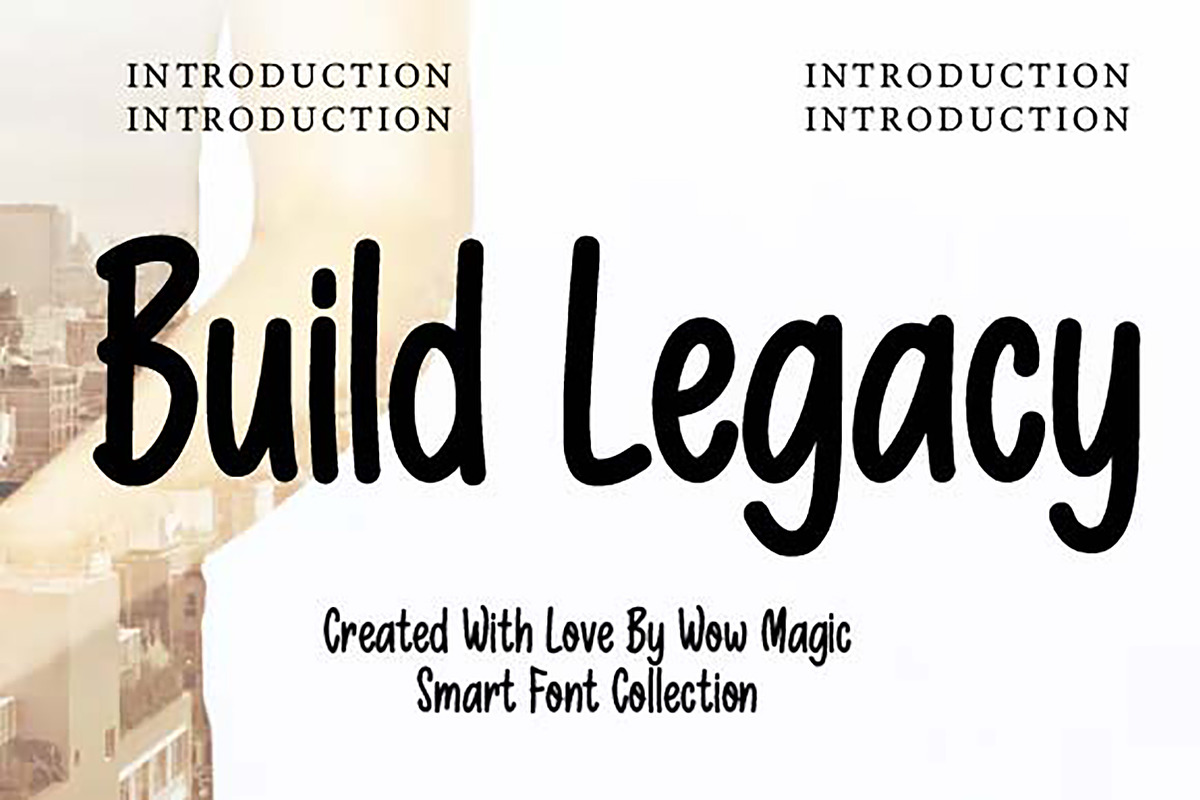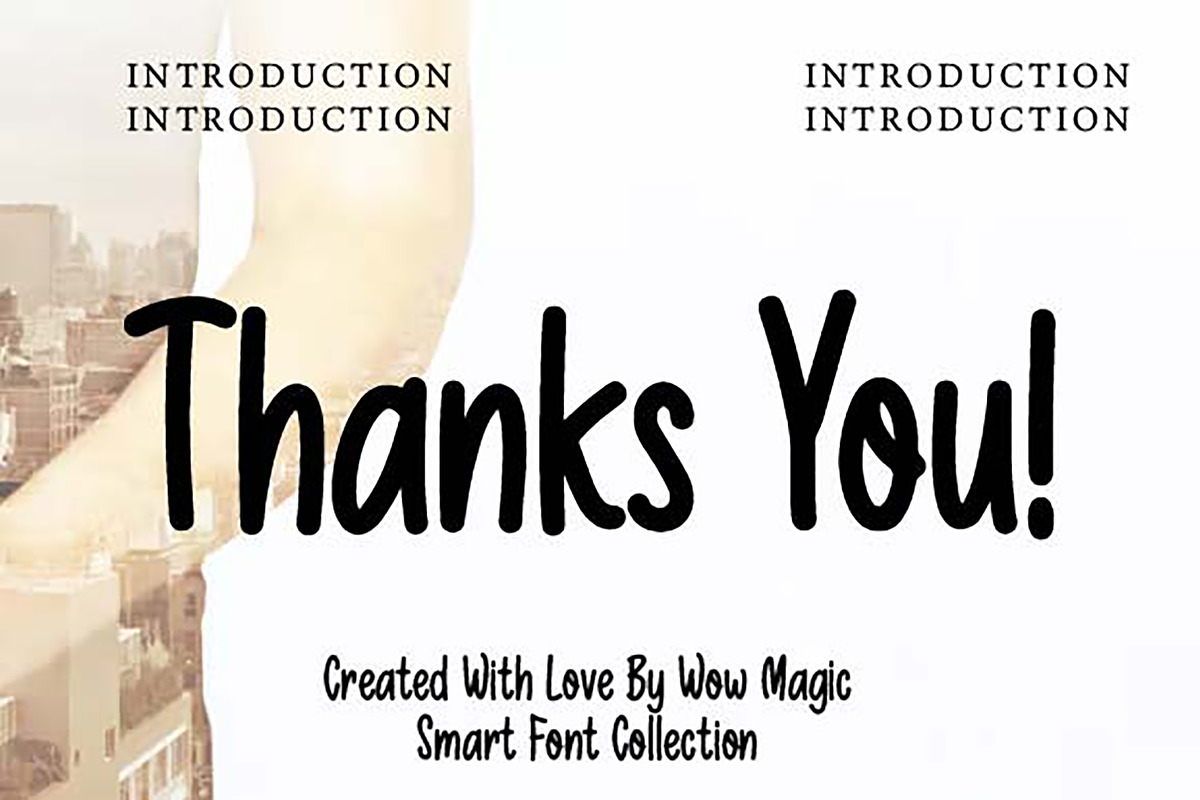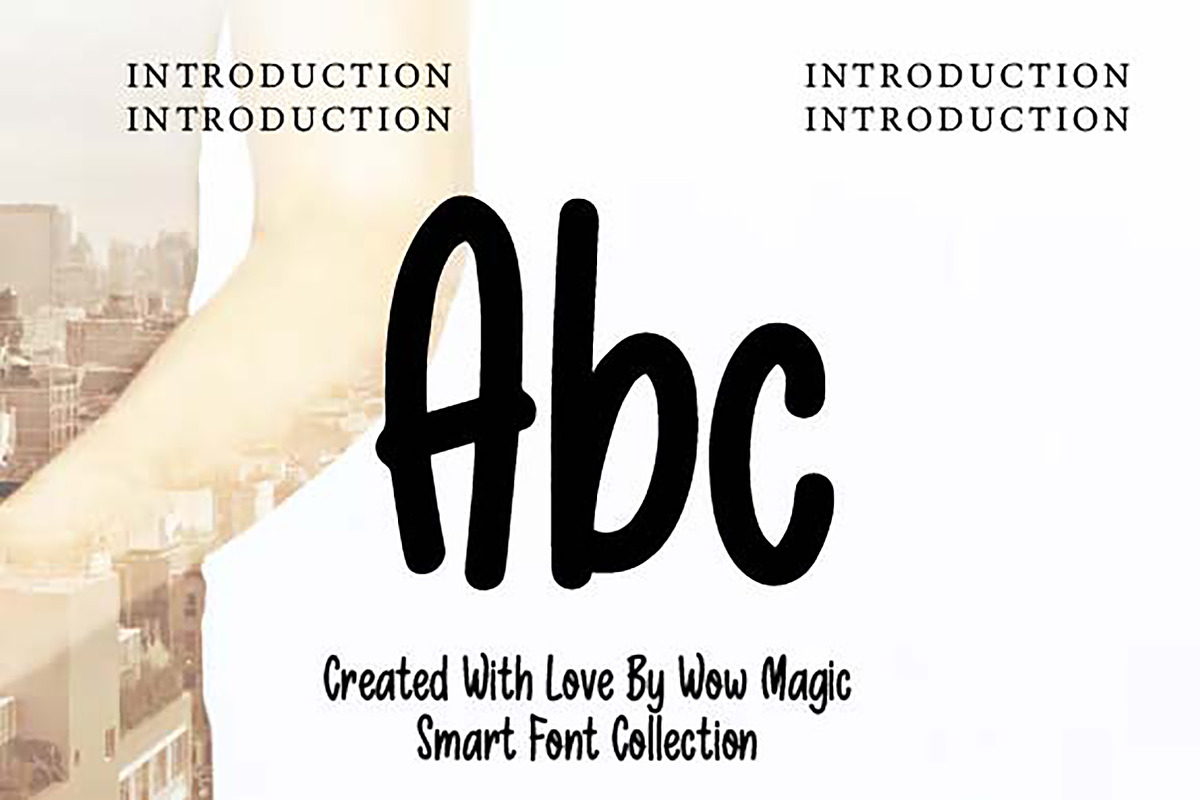
Build Legacy
Build Legacy – Vintage Western Display Font
Build Legacy is a bold vintage western display font inspired by classic saloon signage, frontier typography, and gold rush-era design. This decorative serif font features strong, stylish letterforms with a rustic and nostalgic feel, perfect for creating authentic western-style designs.
Ideal for branding, logos, posters, packaging, book covers, apparel, and retro Americana projects, Build Legacy brings a timeless and eye-catching presence to your typography.
This font is designed for designers who want a bold, classic, and western-inspired display font that stands out in both print and digital designs.
Features Bold Vintage Display Style Western & Frontier Inspired Design Strong and Readable Letterforms Perfect for Logos & Branding Ideal for Posters, Packaging & Apparel